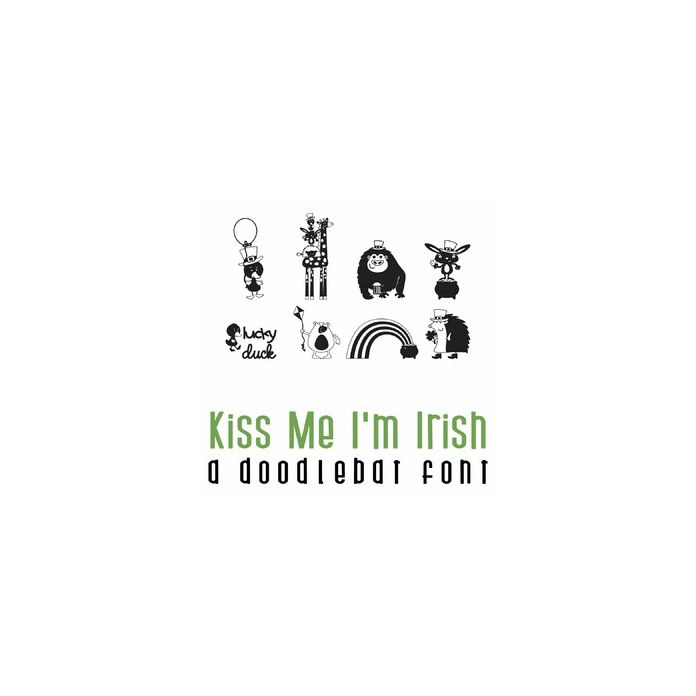
This fun doodlebat font features 26 adorable St. Patrick's themed images and animals, Indians and animals all sharing a feast. Perfect for cards, crafts, gifts, decor, scrap book pages, planner stickers and more!